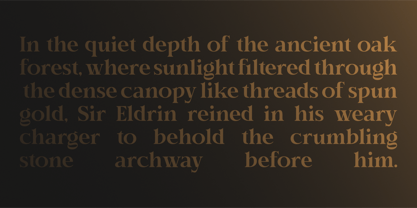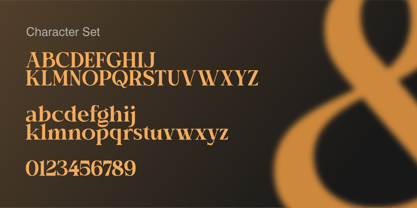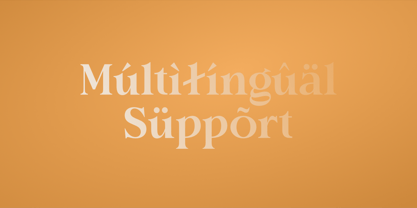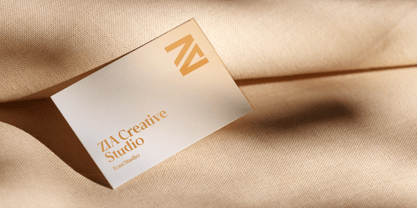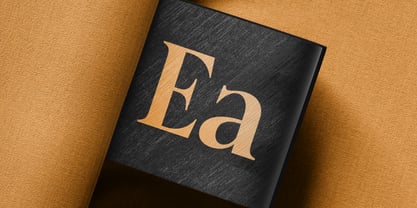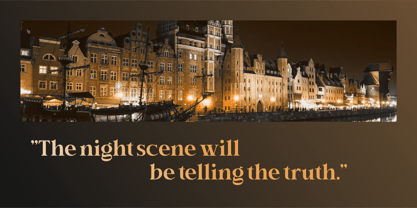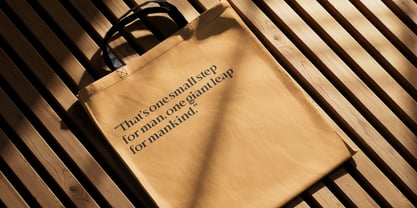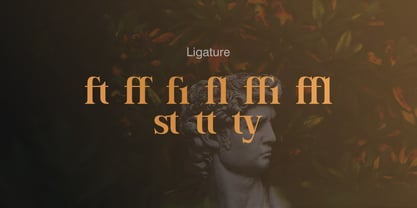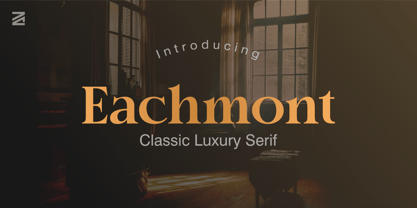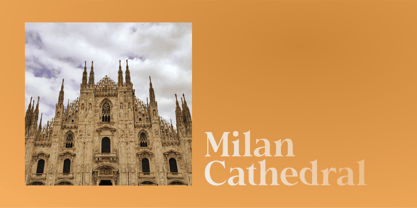
ZIA Eachmont
por ZIA Creative Studio
La familia tipográfica ZIA Eachmont fue diseñada por Zaidan Akbar y publicada por ZIA Creative Studio. ZIA Eachmont contiene 2 estilos y opciones de paquete familiar. Más información sobre esta familia
Eachmont is a timeless, high-end classic luxury serif font designed by Zia Creative Studio. With its sophisticated curves and refined proportions, Eachmont exudes elegance, prestige, and timeless beauty, making it ideal for modern editorial design, high-fashion branding, and luxury product identities. Perfect for: - High-End Luxury Branding & Logo Design - Fashion Magazines & Editorial Layouts - Perfume, Cosmetics & Premium Packaging - Wedding Invitations & High-Class Event Stationery - Elegant Signage & Hotel/Resort Visual Identities What’s Inside: - Eachmont Family (Available in [Jumlah] Styles) - Full Character Set (A-Z, 0-9, Punctuation) - Ligatures & Elegant Alternate Glyphs - Comprehensive Multilingual Support